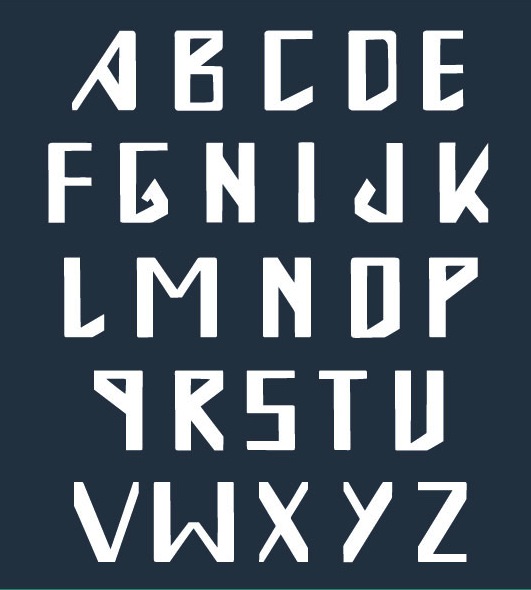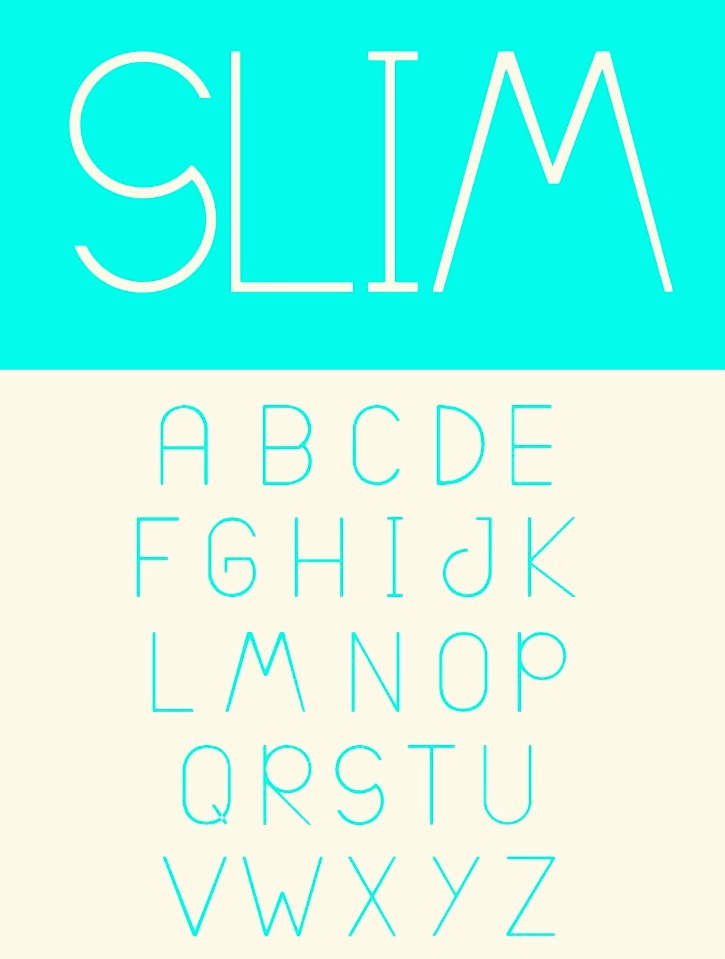
Sophie Rousseau
Graphic designer and web developer based in Paris. In 2015, she offered the free fonts Brush, Slim (a display sans) and One (an outlined typeface).
In 2016, she designed the bilined tweetware typeface Boston. Behance link. Dribble link.